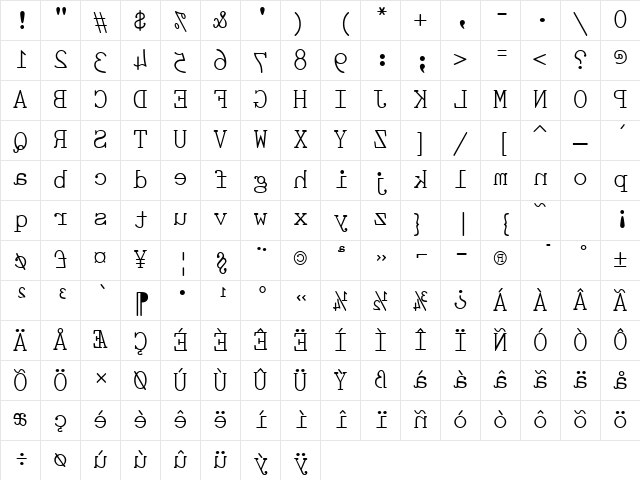
Sdrawkcab Regular Free Font
Sdrawkcab Regular
Design Context for Sdrawkcab
Sdrawkcab is a composed and adaptable typeface that performs quietly and consistently across a wide range of design contexts.